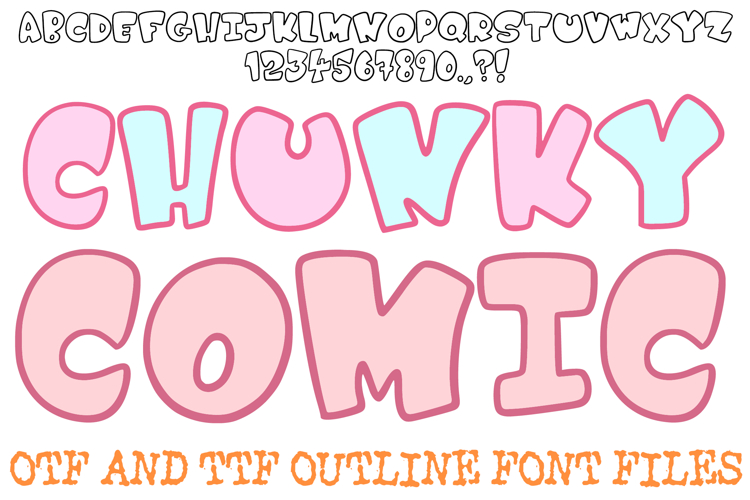
Give your designs a punch of personality with the Chunky Comic Font! This hand-drawn display alphabet features bold, rounded block characters that lean into a classic, energetic comic book aesthetic. With its thick outlines and friendly, inflated silhouette, it is the perfect choice for high-impact social media headlines, playful branding, children’s apparel, and vibrant YouTube thumbnails.
The "pop-art" feel of each character makes your text stand out, providing a sense of depth and volume without losing legibility. Whether you are creating a superhero-themed birthday invite or an edgy streetwear logo, the Chunky Comic Font delivers a fun, professional look that captures attention instantly.
Bold Inflated Perspective: Every character features a consistent, soft, balloon-like shape, giving your words a heavy, physical presence.
Clean Sketched Outlines: The slightly irregular, hand-inked borders provide an artisan feel that avoids the stiffness of standard digital fonts.